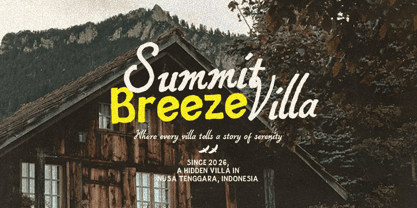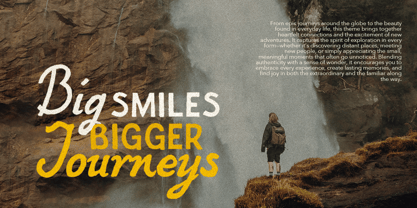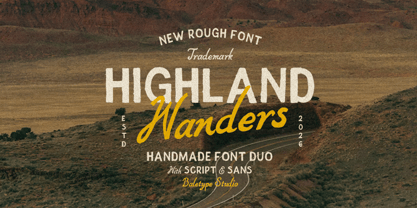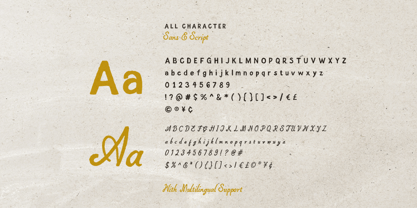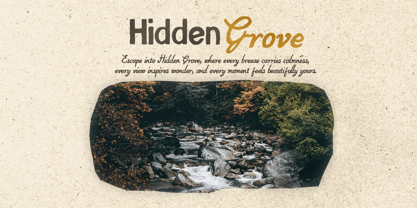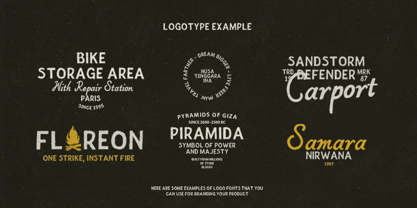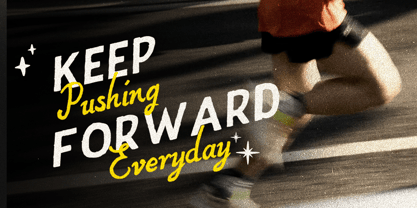
Highland Wanders
por Bale Type
La familia tipográfica Highland Wanders fue diseñada por Ridho Azumarta y publicada por Bale Type. Highland Wanders contiene 2 estilos y opciones de paquete familiar. Más información sobre esta familia
Highland Wanders is a rough hand-drawn font duo that combines a simple sans serif with a flowing italic script, designed to complement each other perfectly. With its natural handmade feel and versatile character, this font is suitable for a wide range of creative projects such as posters, outdoor and adventure-themed designs, handmade greeting cards, quotes, social media graphics, packaging, logotypes, and branding that requires a warm handcrafted touch. The combination of clean and expressive styles makes it easy to create eye-catching and authentic designs for both modern and rustic aesthetics. Highland Wanders also includes multilingual support, making it a great choice for international and professional design needs.